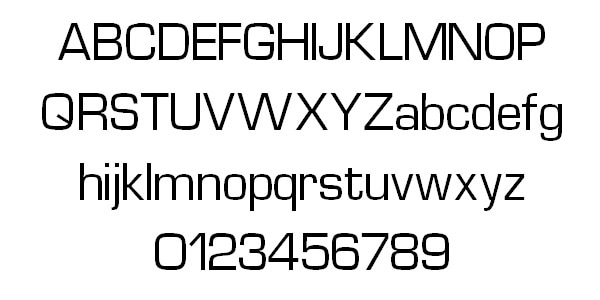
Small Sans Serif Fonts. Sans serif fonts are generally easier for children to read because they’re simpler. Looking for thin sans serif fonts?
This applies to serif fonts as well as sans serif fonts, so the use of sans serif fonts is no an automatic choice. A sans serif font is, as the name implies, a font without serifs. This typeface is also famous for its pairing functions.
This Serif And Sans Serif Font Combination Is Great For Movie Titles, Book Titles, And Social Media.
Testing out all caps, italicizing the text, using a bold variation). Lozange is a bold minimalist elegant sans serif font. Lozange is perfect for branding projects, logo design, clothing branding, product packaging, magazine headers, or simply as a stylish text overlay to any background image.
This Typeface Is Also Famous For Its Pairing Functions.
Waverly cf connary fagen type design. A sans serif font is, as the name implies, a font without serifs. Times new roman is an example of a serif font.
Every font is free to download! Awaken is a neat font that features swashes on some characters and is suitable for use on wedding invitations. There are several styles of sans serif fonts, including geometric sans serifs like futura, humanist sans serifs like frutiger, grotesque sans serifs like.
Sans Serif Fonts Are Generally Easier For Children To Read Because They’re Simpler.
Some of the most commonly used serif fonts include times new roman, garamond, baskerville, georgia, and courier new. Serif fonts have a small line or extension attached to the end of a letter or symbol. It can make great pairs with other fonts.
Champagne & Limousines By Lauren Thompson.
This applies to serif fonts as well as sans serif fonts, so the use of sans serif fonts is no an automatic choice. 2115380 downloads free for personal use. Caviar dreams by lauren thompson.